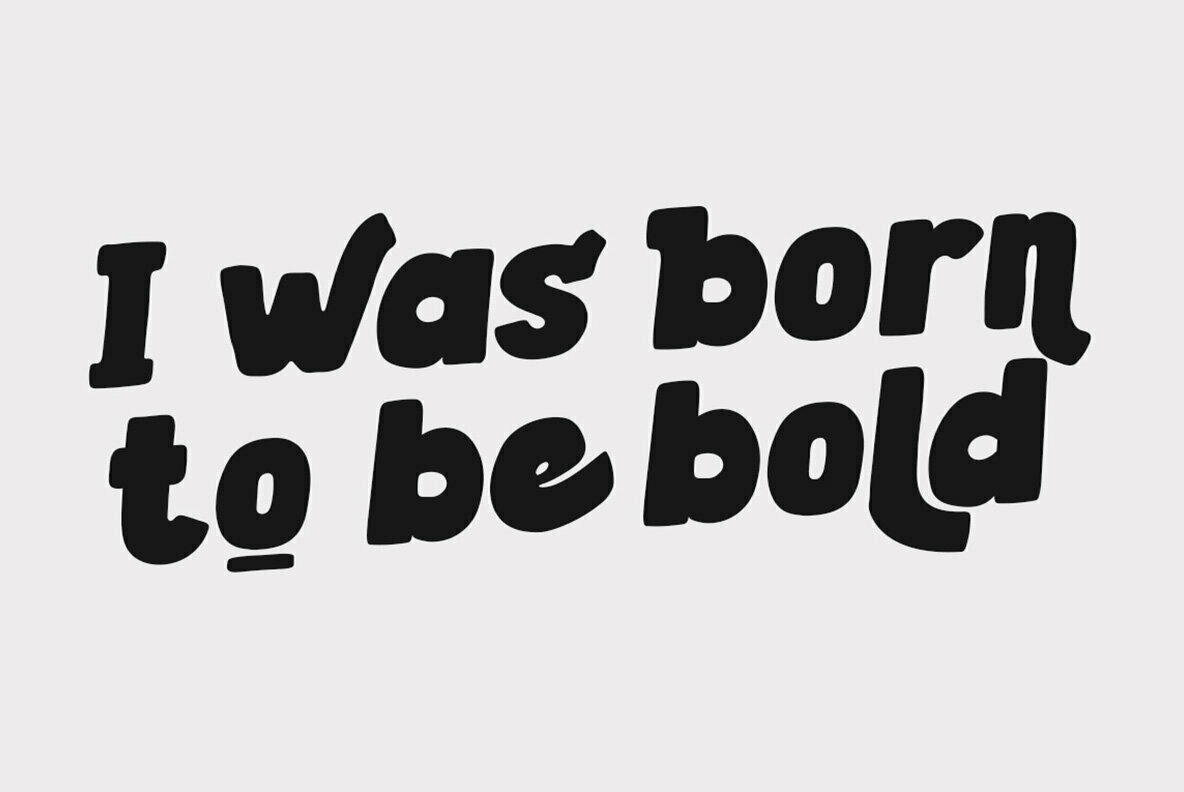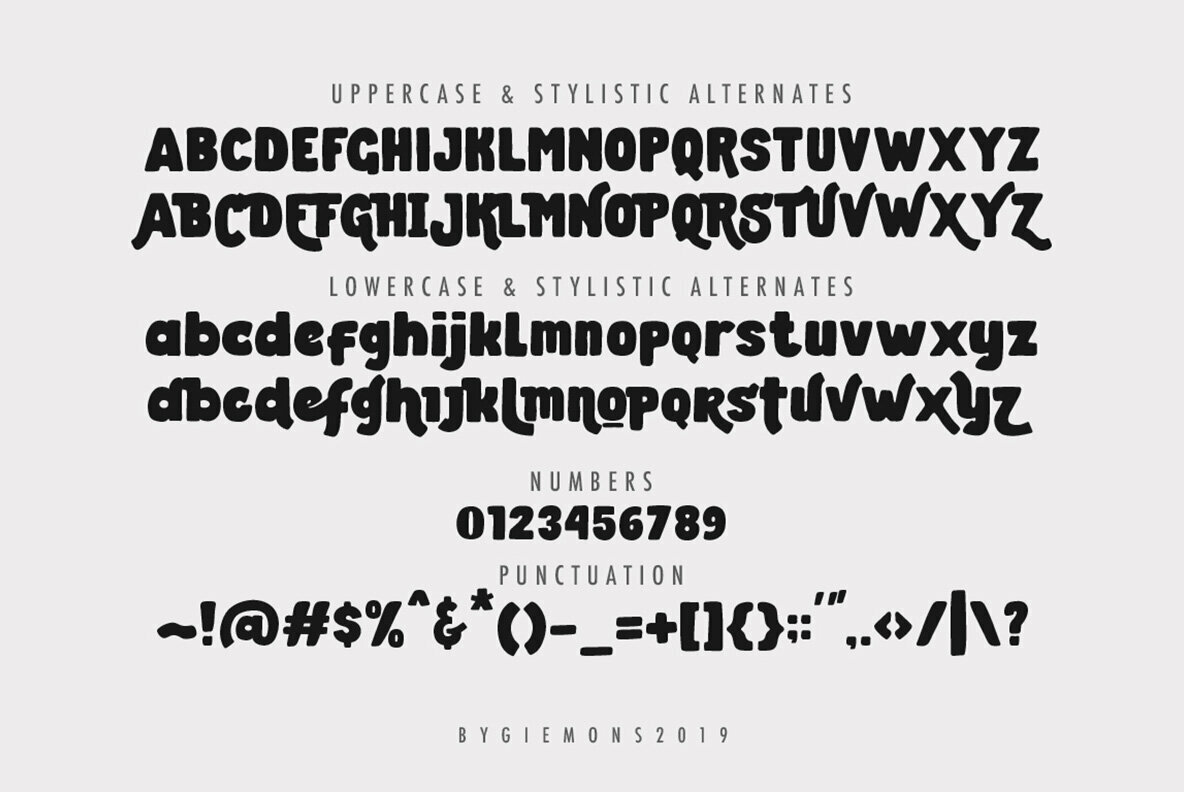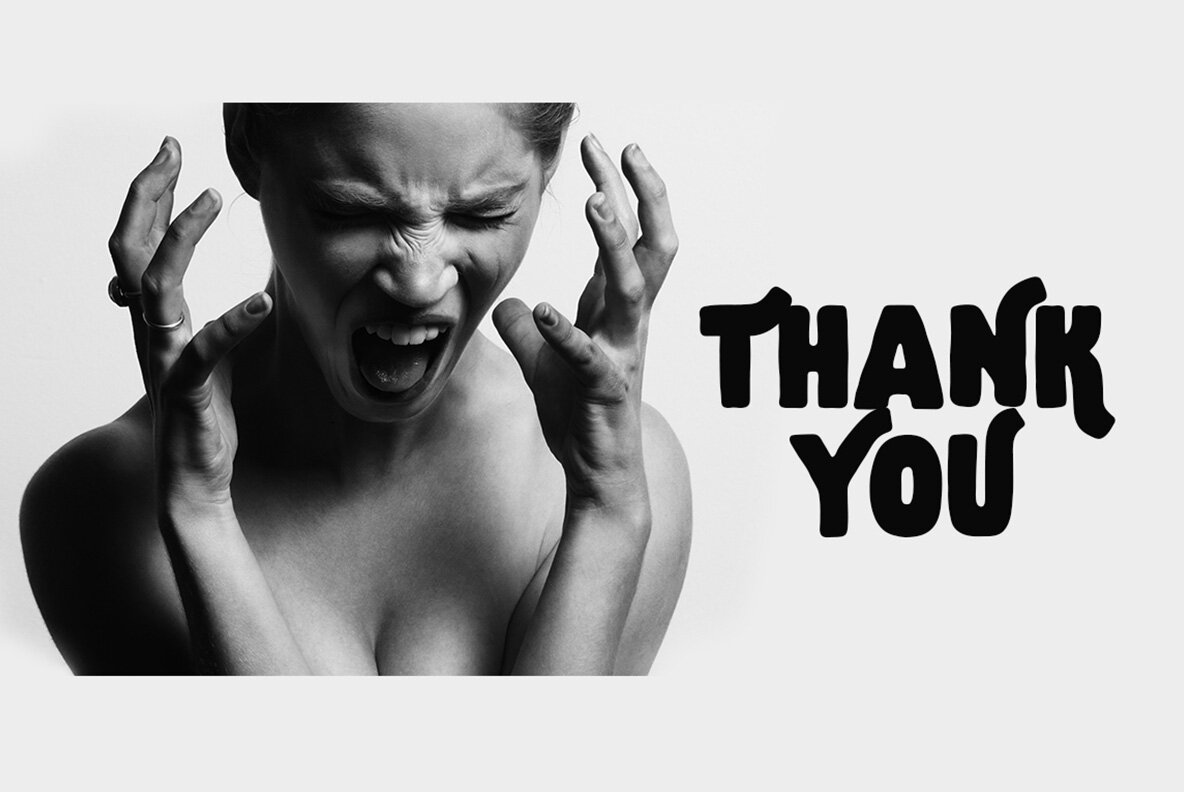
BE BOLD Font
Be Bold
BE BOLD by giemons is a dynamic display font crafted to convey strong messages effectively in your design endeavors. Its striking presence makes it ideal for a variety of applications including logos, labels, clothing design, movie screens, posters, and album covers. This versatile font is designed to elevate your creative projects with an assertive edge, capturing attention in any context.BE BOLD: Impactful Display Typeface